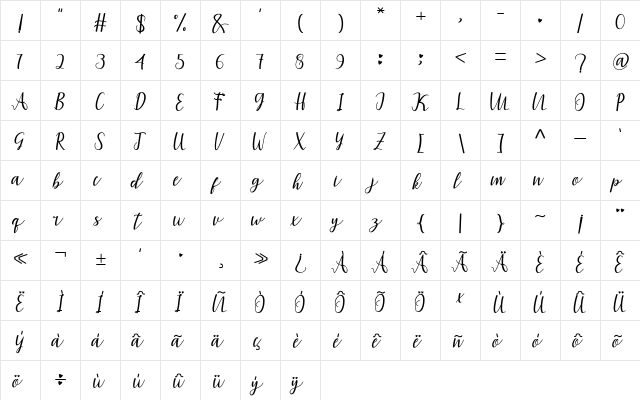
amira script Regular
| Foundry | ramadhana |
| Designer | ramadhana |
Design Context for amira script Typeface
amira script brings a calligraphic fluidity to the page — its connecting strokes and expressive curves give it an unmistakably human quality.